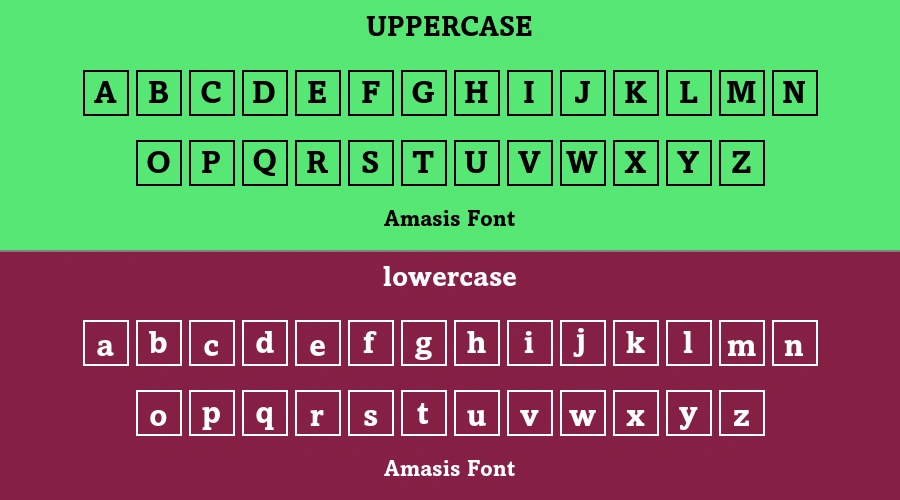
About Amasis Font
Amasis Font embodies typographic excellence through its masterful combination of humanist proportions and visual comfort. Created for packaging hero, this typeface delivers exceptional reliability and user trust across all applications. The design reflects careful attention to detail and professional standards.
Advanced capabilities include distinctive bracketed serifs and versatile technical characters, giving designers creative control. When used in page numbers, Amasis Font exhibits remarkable small text clarity. The harmonious balance between counter shape and cultural relevance sets this typeface apart.